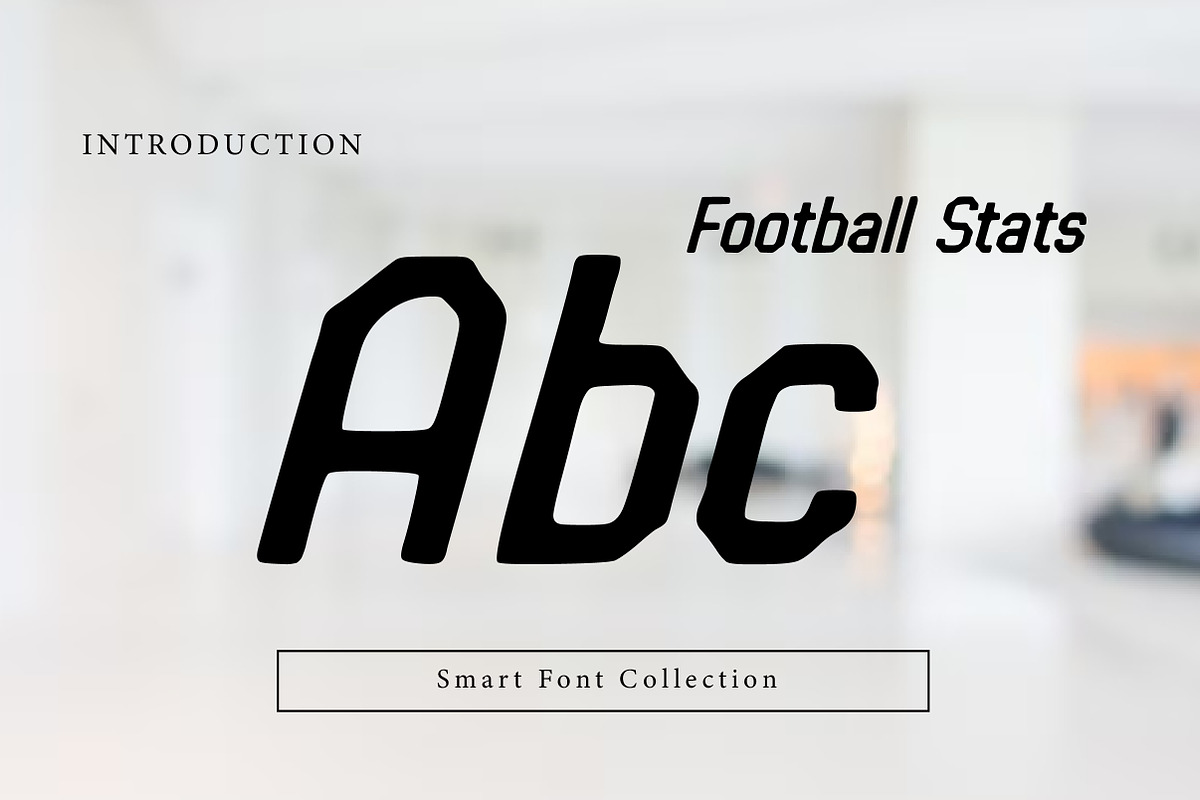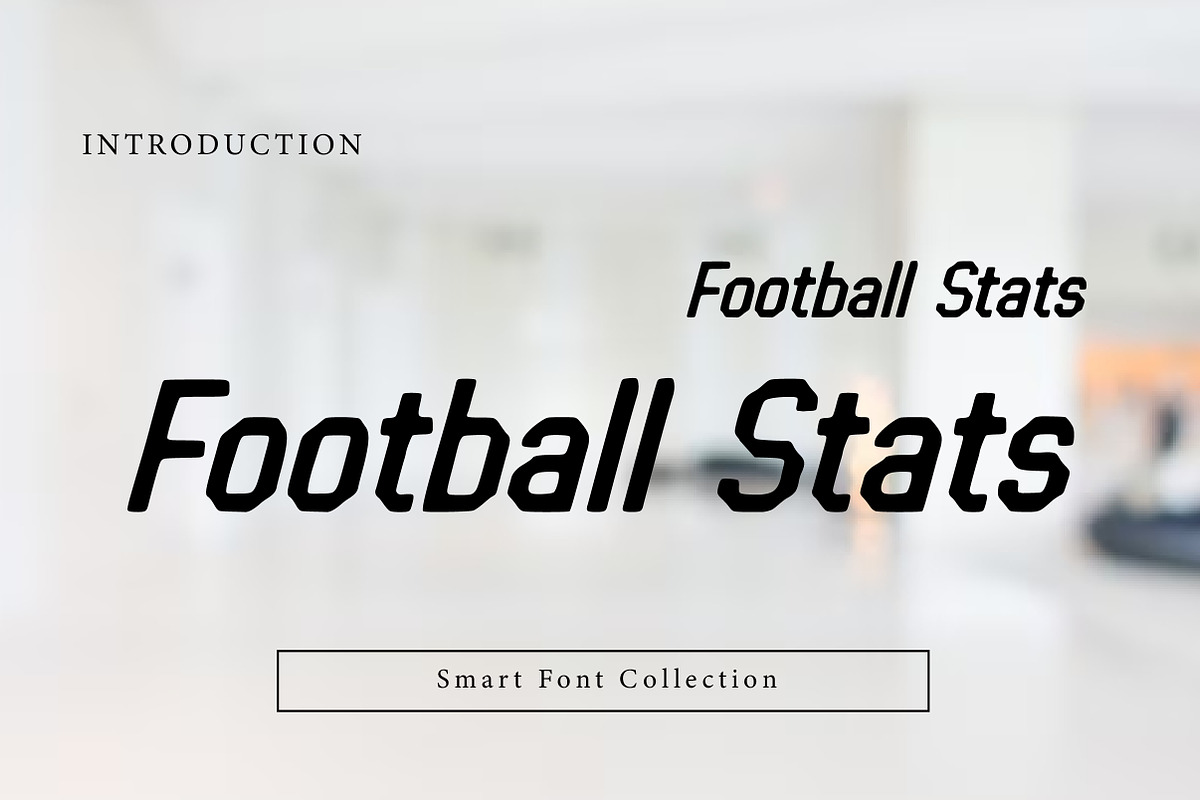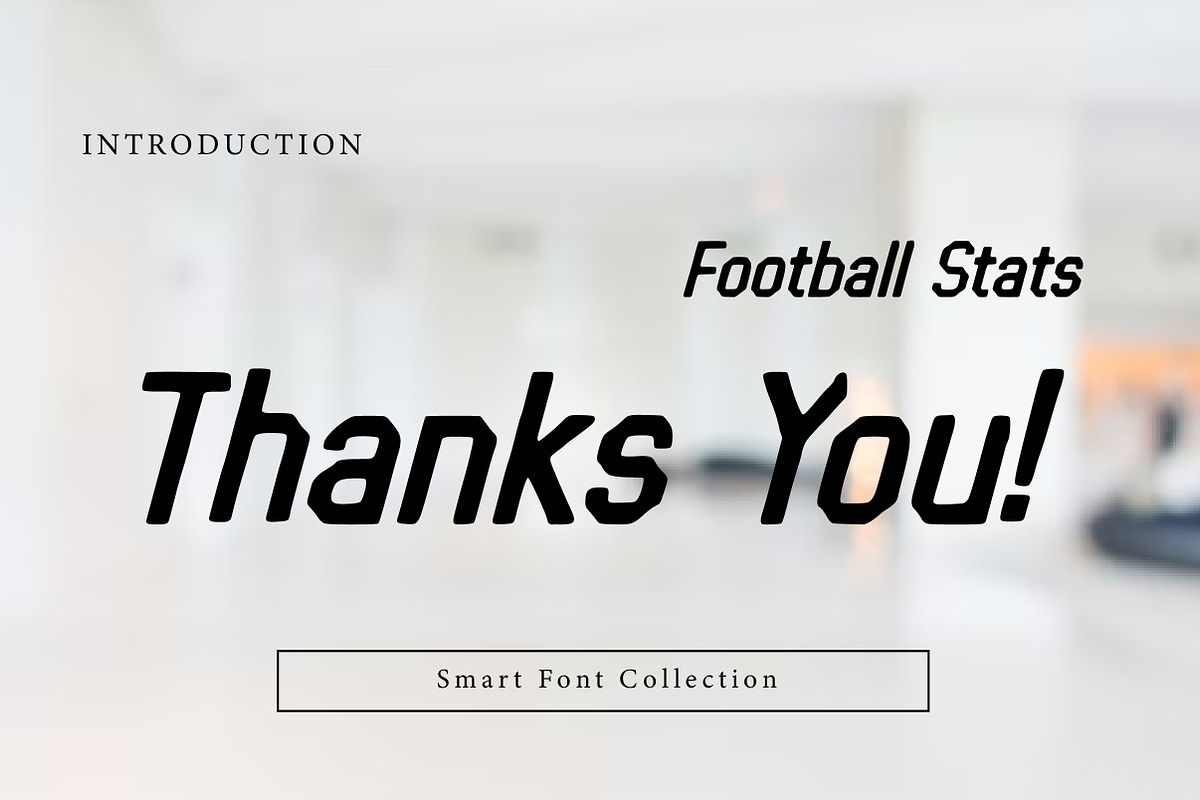
Football Stats
Football Stats is a sporty, slanted athletic display font designed for fast, energetic typography. With its bold weight, clean edges, and forward-leaning motion, it’s perfect for scoreboards, match posters, team branding, jerseys, stat graphics, social media sports content, highlights, and event promotions. Football Stats delivers a modern, game-day vibe with strong readability and impact. (General “football fonts” are commonly used for sporty branding, promos, and team visuals.